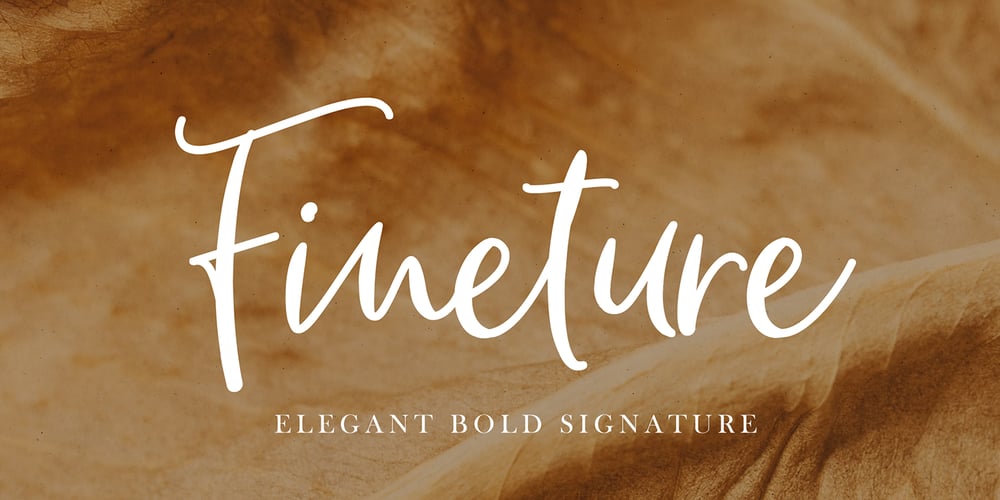
Fineture Font Family was designed by Eko Kurniawan and published by Atom. Fineture contains 1 styles and family package options. Fineture is an exquisite handwritten font, masterfully designed to become a true favorite. It maintains its classy calligraphic influences while feeling contemporary and fresh. Fall in love with it and bring your projects to the highest levels!